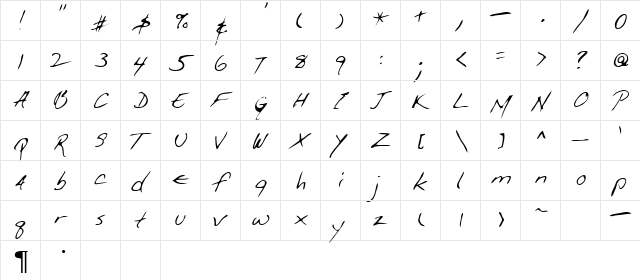
Clarxn Regular
Design Context for Clarxn Typeface
Clarxn is a composed and adaptable typeface that performs quietly and consistently across a wide range of design contexts.